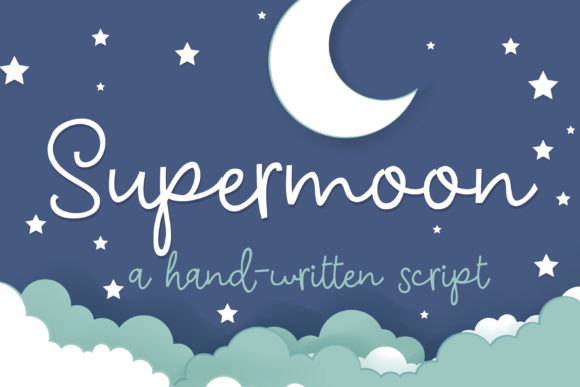
Introducing Supermoon Script, the font that will ignite your creative passions and transform your designs into masterpieces. Its meticulously crafted characters, reminiscent of flowing water, possess an inherent charm that will elevate your projects to new heights.
Supermoon Script's ethereal beauty lies in its ability to effortlessly blend elegance and playfulness. Its smooth curves and graceful lines evoke a sense of nostalgia, transporting you to a world of timeless charm. Whether you're crafting heartfelt invitations, designing enchanting logos, or creating captivating social media posts, Supermoon Script will add a touch of magic to your creations.
This versatile font family is designed to adapt seamlessly to any project, bringing your vision to life with stunning precision. From elegant wedding invitations that exude romance to playful branding projects that spark joy, Supermoon Script effortlessly captures the essence of your message. Its unwavering consistency ensures that your designs maintain a cohesive and polished look, leaving a lasting impression on your audience.
With Supermoon Script, you'll embark on a creative journey where the boundaries are limitless. Its intuitive design empowers you to effortlessly craft designs that speak to the heart and resonate with your audience. Let your imagination soar as you explore the endless possibilities that this remarkable font has to offer.